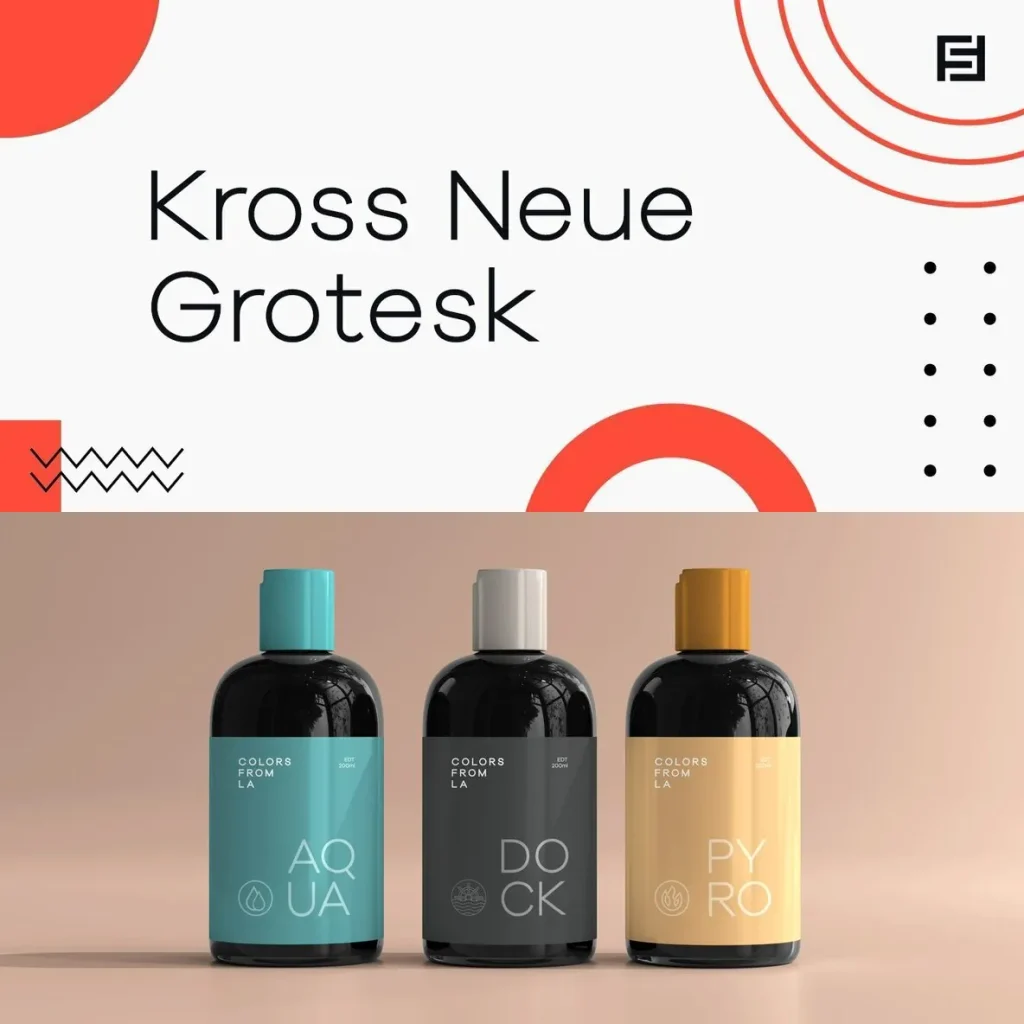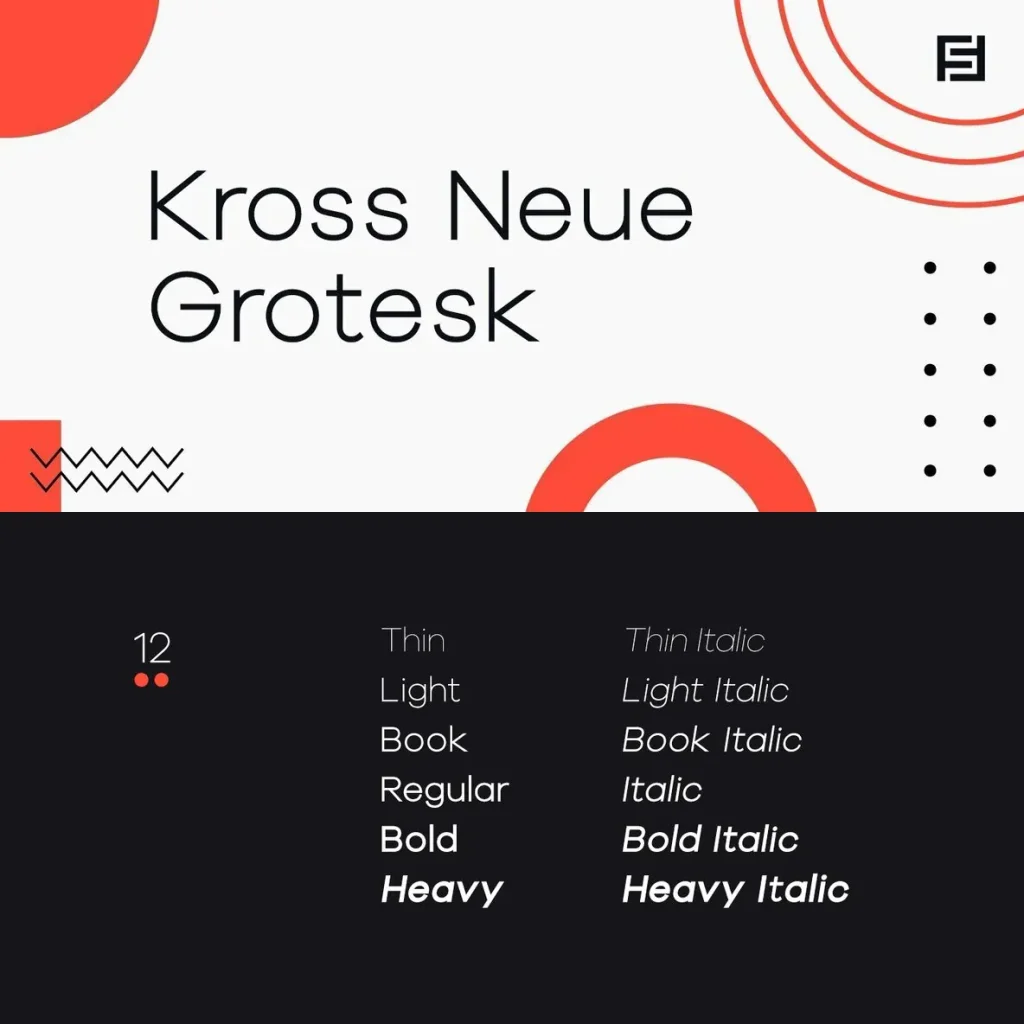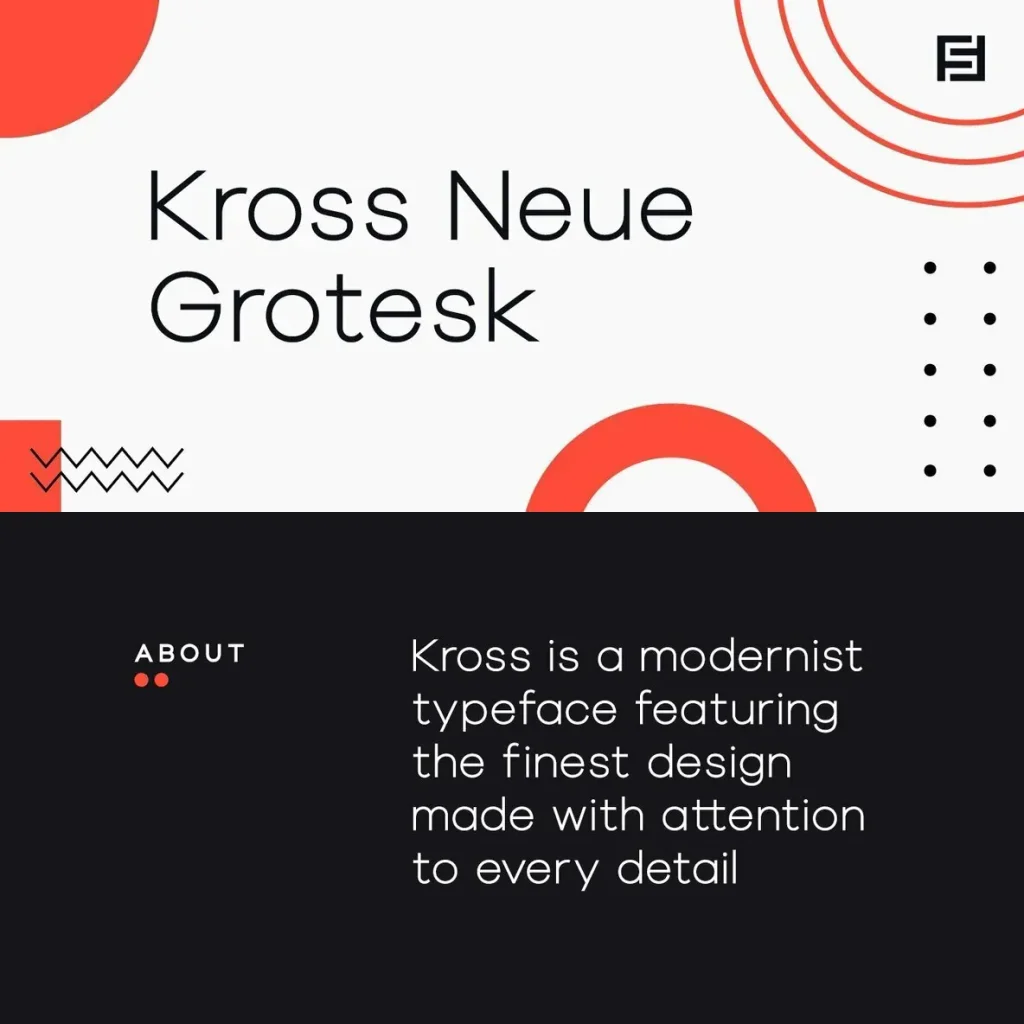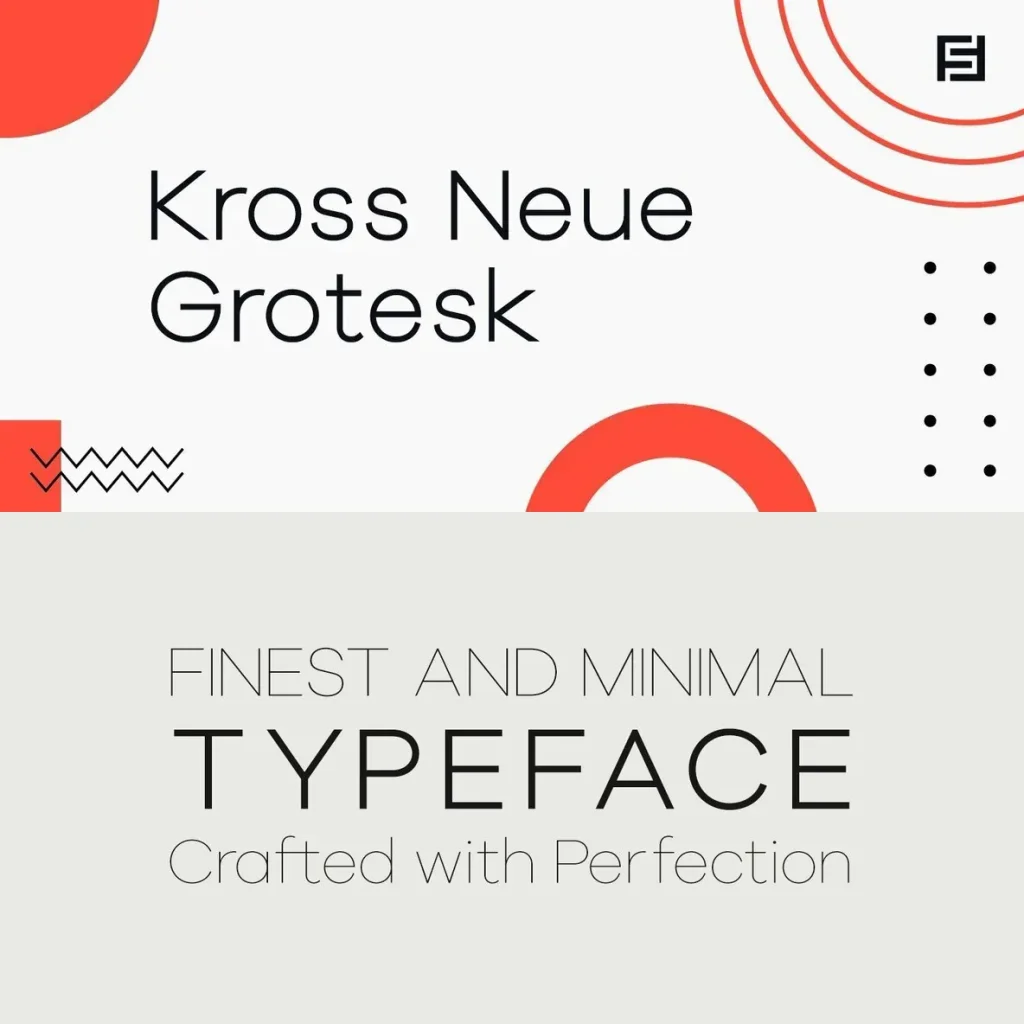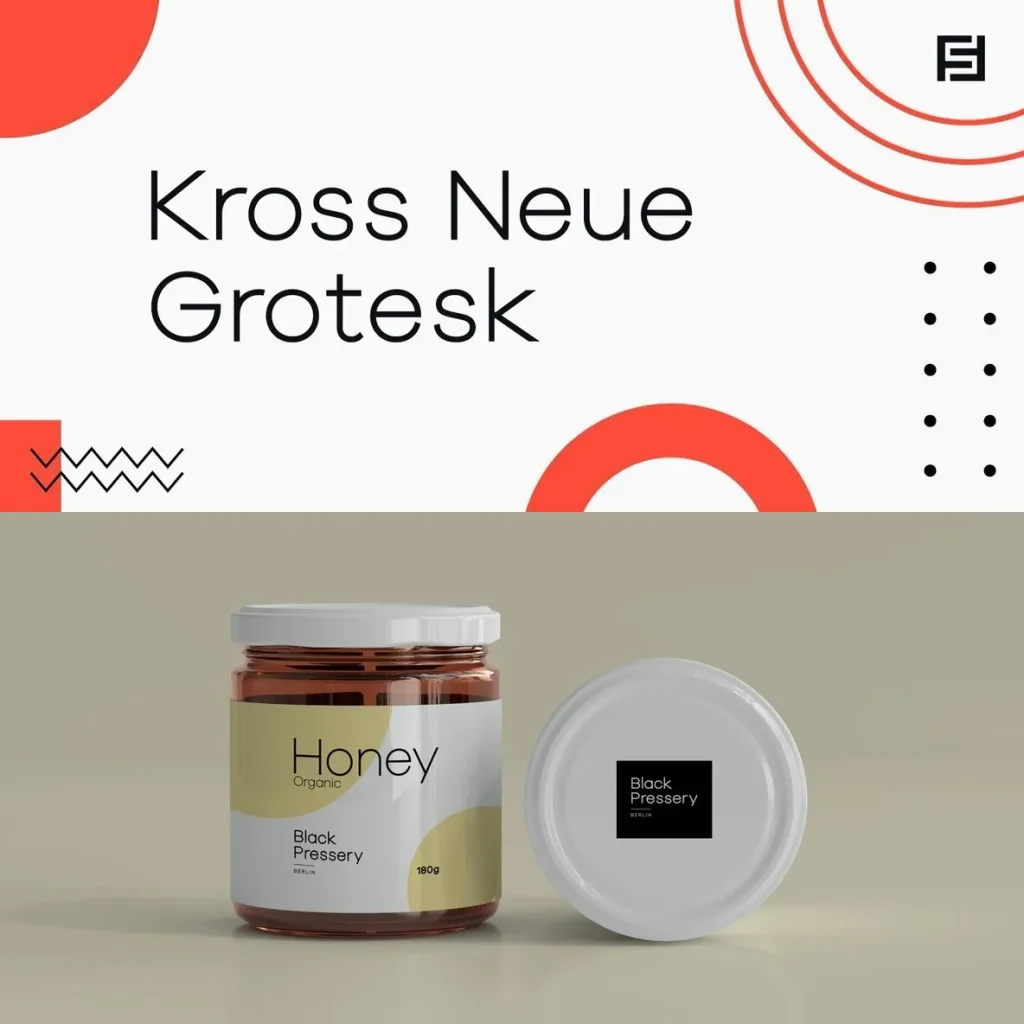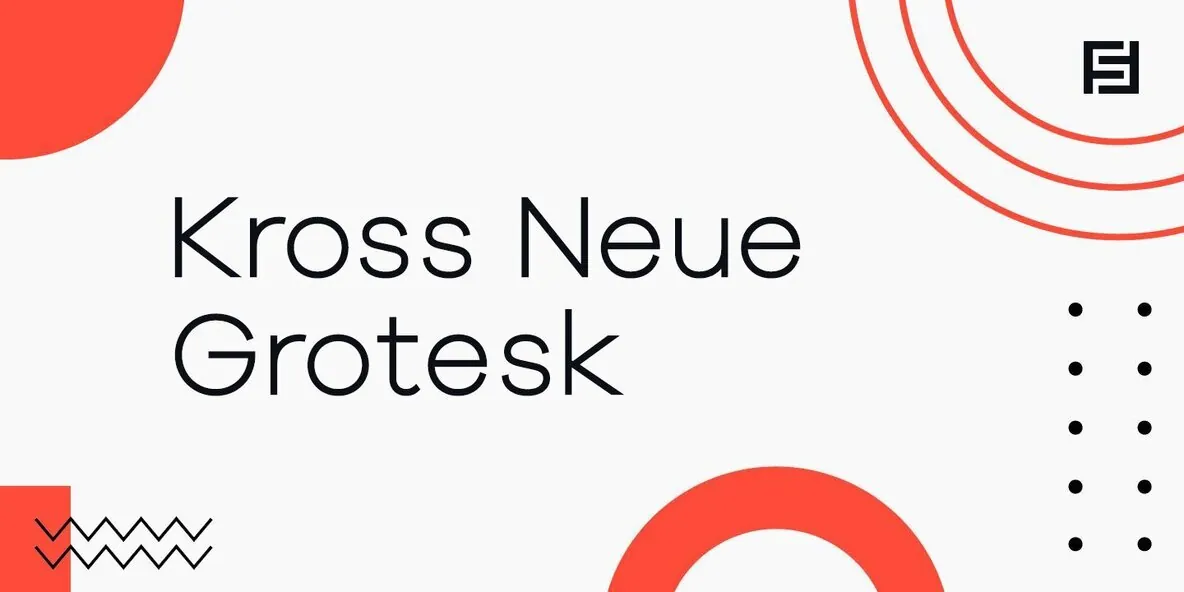
Kross Neue Grotesk Font
Kross Neue Grotesk — Precision in Plain Sight
Kross Neue Grotesk is a modern grotesque sans-serif typeface family built around clarity, precision, and functional design. Its clean voice gives typography a composed presence, with a structure that supports direct communication across demanding visual contexts.
The family’s balanced construction makes it well suited to branding systems, digital interfaces, editorial layouts, and professional applications. KROSS NEUE GROTESK keeps text clear and purposeful, offering a practical sans-serif foundation for designers who need refined form without distraction.